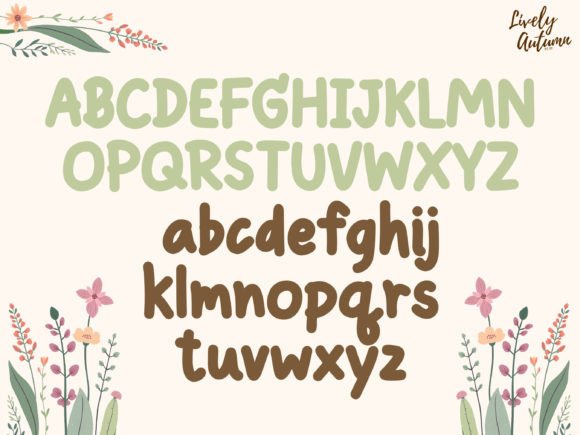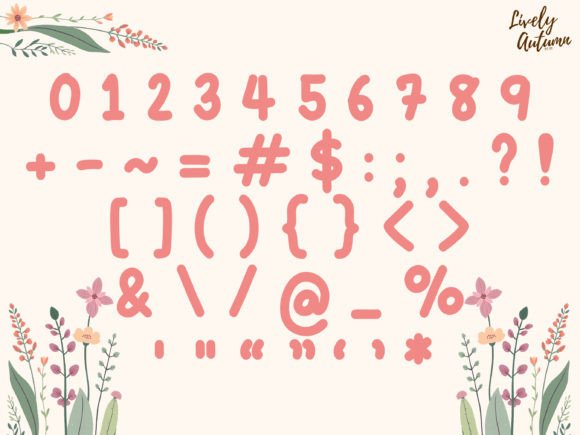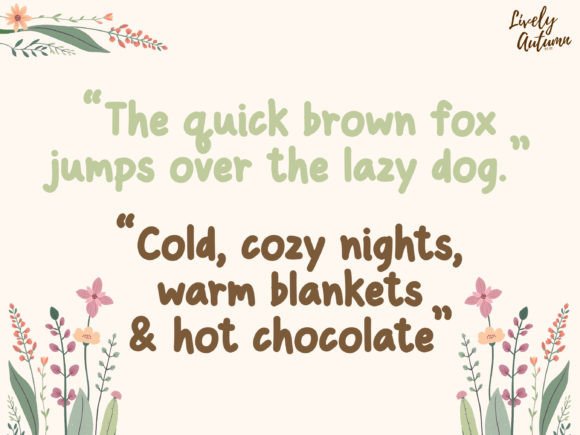
Introducing Cozy Font: The Sweet and Friendly Handwritten Font for Your Design Needs
Are you a designer, crafter, or DIY enthusiast looking for a font that can add a personal touch to your projects? Look no further than Cozy Font, a sweet and friendly handwritten font that’s perfect for a wide range of designs. With its natural and unique style, Cozy Font is incredibly versatile and can be used in various creative projects, from digital designs to handmade crafts.
The Charm of Cozy Font
Cozy Font is a handwritten font that’s designed to evoke a sense of warmth and friendliness. Its natural and unique style makes it stand out from other fonts, and its sweetness is sure to capture the hearts of your audience. Whether you’re creating a logo, a social media graphic, or a craft project, Cozy Font is the perfect choice to add a personal touch and make your design more relatable.
What Makes Cozy Font So Versatile?
The versatility of Cozy Font lies in its simplicity and elegance. It’s a font that can be used in a variety of designs, from modern and minimalist to vintage and rustic. Cozy Font is perfect for:
- Digital designs: Use Cozy Font in your social media graphics, blog posts, and website designs to add a personal touch and make your content more engaging.
- Handmade crafts: Cozy Font is perfect for crafters who want to add a personal touch to their projects, such as handmade cards, gift tags, and scrapbooking.
- Branding and marketing: Use Cozy Font in your logo, business cards, and marketing materials to create a friendly and approachable brand image.
- DIY projects: Cozy Font is great for DIY enthusiasts who want to add a personal touch to their projects, such as home decor, woodworking, and sewing.
How to Use Cozy Font in Your Designs
Using Cozy Font in your designs is easy and straightforward. Here are some tips to get you started:
- Pair Cozy Font with other fonts: Cozy Font works well with other fonts, such as sans-serif fonts, to create a beautiful contrast.
- Experiment with colors: Cozy Font looks great in a variety of colors, from bright and bold to soft and pastel.
- Use Cozy Font in different sizes: Cozy Font can be used in different sizes, from large headings to small text.
- Add embellishments: Cozy Font can be paired with embellishments, such as flowers and leaves, to add a decorative touch.
The Benefits of Using Cozy Font
There are many benefits to using Cozy Font in your designs. Here are a few:
- Unique and distinctive: Cozy Font is a unique and distinctive font that will set your designs apart from others.
- Easy to read: Cozy Font is easy to read, making it perfect for body text and captions.
- Versatile: Cozy Font can be used in a wide range of designs, from digital designs to handmade crafts.
- Time-saving: Cozy Font can save you time and effort in your design process, as it’s easy to use and doesn’t require a lot of editing.
| Font Name | Cozy Font |
| Author | LivelyAutumn 11.11 |